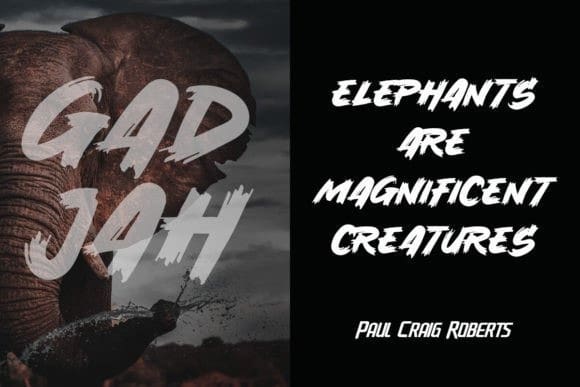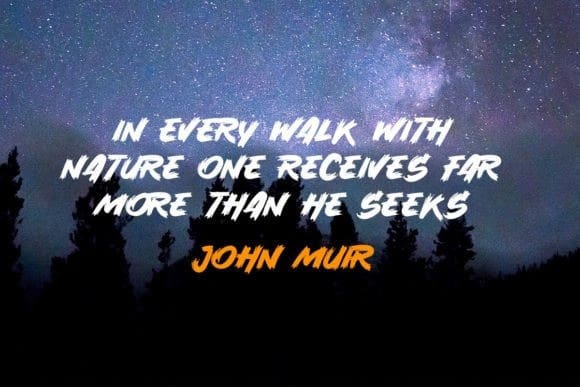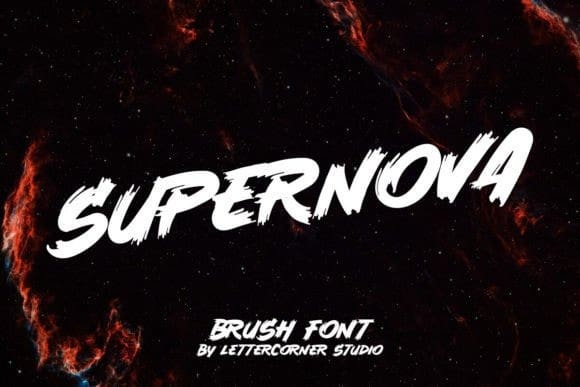
Supernova Brush Font
Supernova Brush Font, a modern and stylish font style influenced by urban style and branded goods that can be used in a wide variety of ways by Lettercorner Studio
Supernova Brush font is ideal for branding, photo overlays, watermarks, typography, greeting cards, posters, business cards, branding projects, social media posts, magazines, book covers, invitations, weddings, photography, fashion, apparel, letter, stationery, or any tasks that need a signature taste.